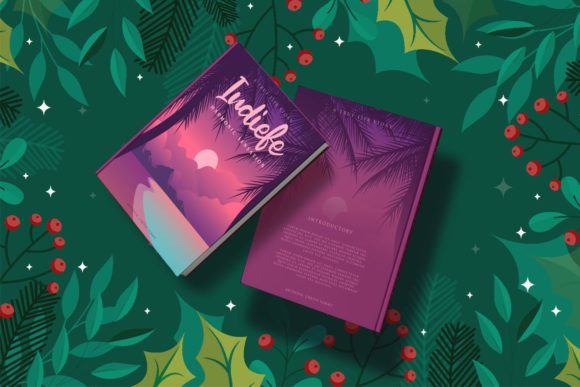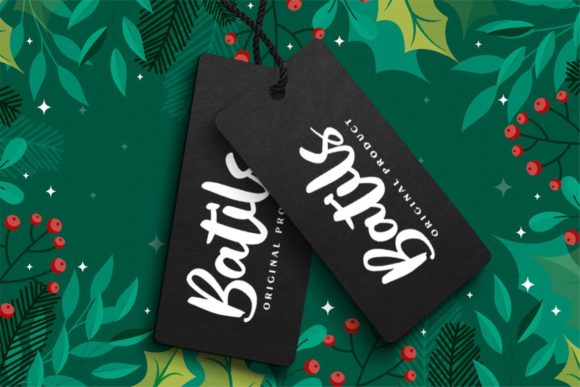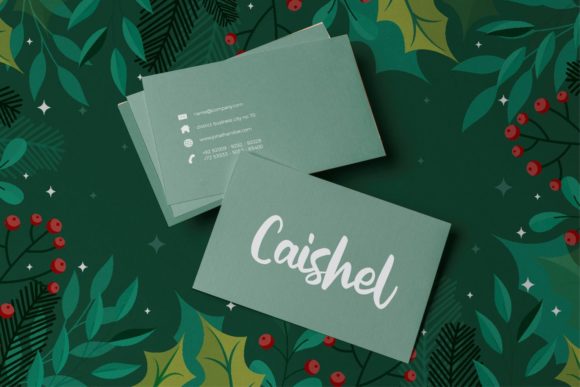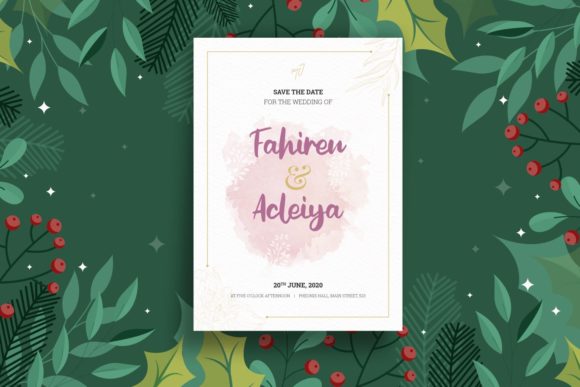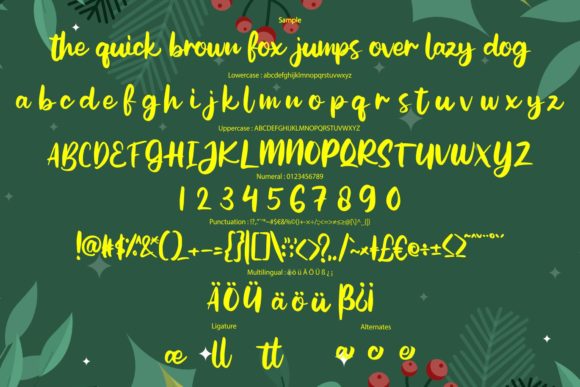
Splaish Font
About Splaish Font
“Splaish” sounds like a bold and friendly handwritten font that adds a touch of realism and creativity to your designs. With its unique style and friendly appearance, this font is perfect for creating spectacular and eye-catching designs.
By using “Splaish” in your projects, you can make your ideas come alive with its bold and expressive strokes. Its handwritten charm brings a sense of authenticity and personalization to your creations, making them stand out with a playful and inviting vibe.
This font’s versatility allows you to use it for various design projects, from posters and social media graphics to branding materials and more. “Splaish” can be a powerful tool to convey your message in a friendly and approachable manner.
Whether you’re working on advertising, packaging, or personal projects, “Splaish” can be your go-to font to add a splash of creativity.
Embrace the boldness of “Splaish” and let it be the font that enhances your designs and makes them more engaging and captivating.
Incorporate “Splaish” into your designs with confidence, and you’ll witness how it elevates your ideas, making them more realistic and visually appealing.
In conclusion, “Splaish” is a bold and friendly handwritten font that can bring your ideas to life with its expressive and playful style. Embrace its versatility and use it for various design projects to create spectacular and captivating designs. With “Splaish,” your creations will exude creativity, friendliness, and a sense of approachability that resonates with your audience.